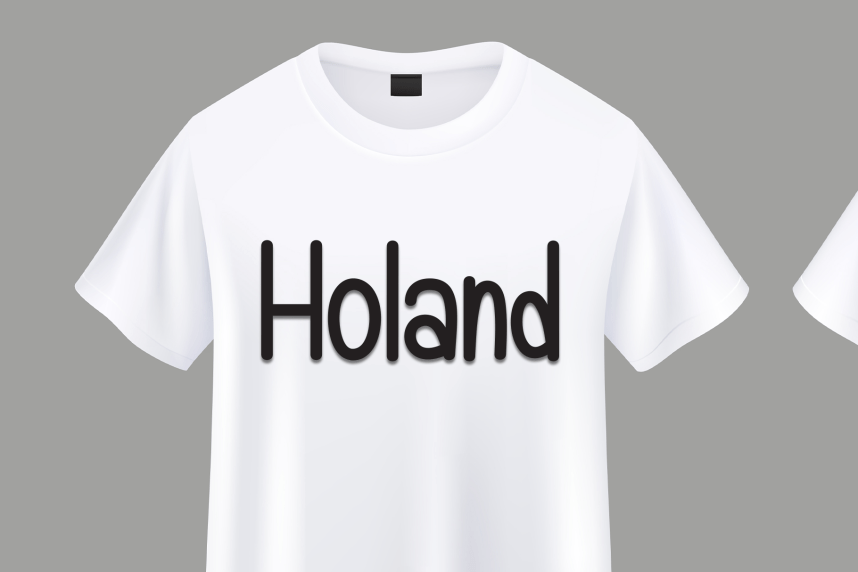
Chubby Saturday – Creative Style Font
Amazing – Creative Style Font is a sweet and friendly handwritten display font. Cute and fun, this font is ideal for writing wedding invitations, cards, or any other design that might need a playful touch!